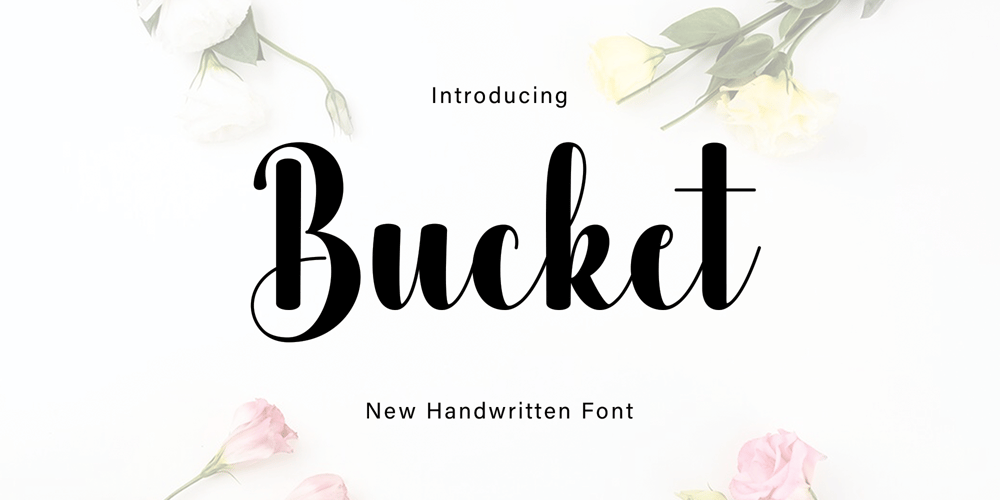
Bucket Font Family was designed by published by Dania Graphix Studio. Bucket contains 1 styles and family package options. Bucket script is a modern calligraphy design including Regular. This font is casual and beautiful with swashes. Can be used for various purposes such as logos, product packaging, wedding invitations, branding, headlines, signage, labels, signatures, book covers, posters, quotes, and much more.Bucket Script is encoded with PUA Unicode, which allows full access to all additional characters without having to design special software. Mac users can use Font Book, and Windows users can use Character Map to view and copy any additional characters to insert into their favorite text editor/application.